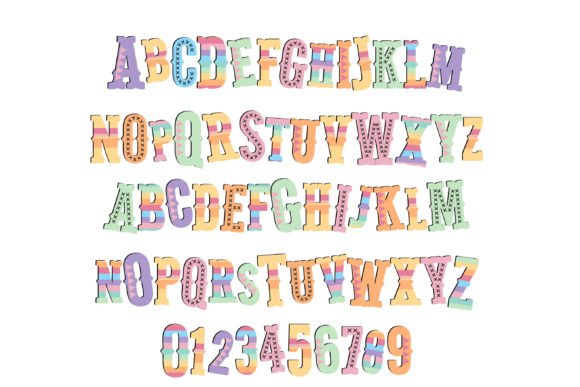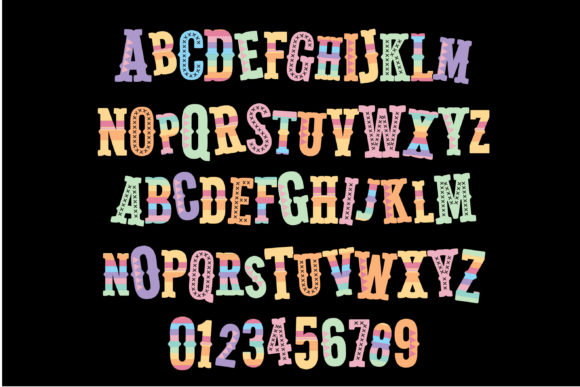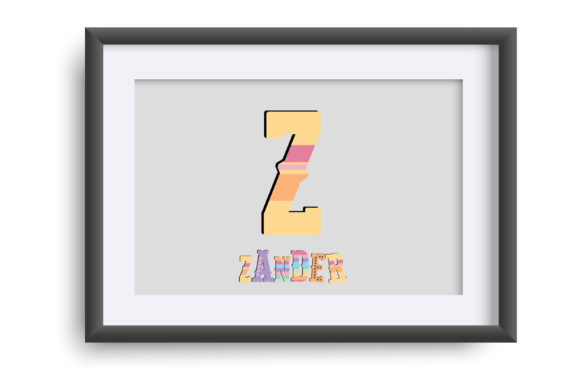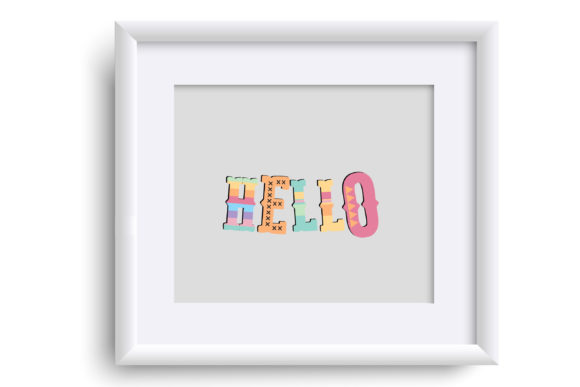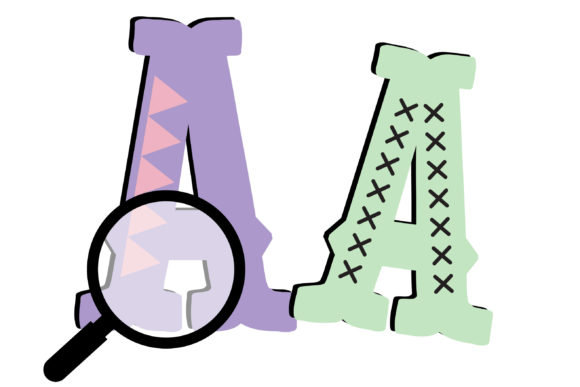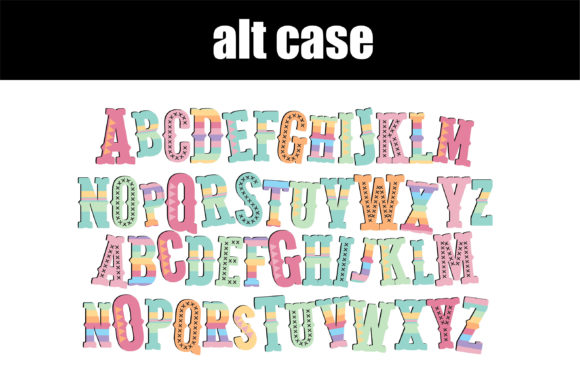
Introduction to Alpaca Pastel Font
This full-color font features a pastel color palette on toggled serif lettering.
There is a second version of each upper and lowercase letter accessed through your alt cases available through your systemโs character map Note.
Key Features of Alpaca Pastel Font